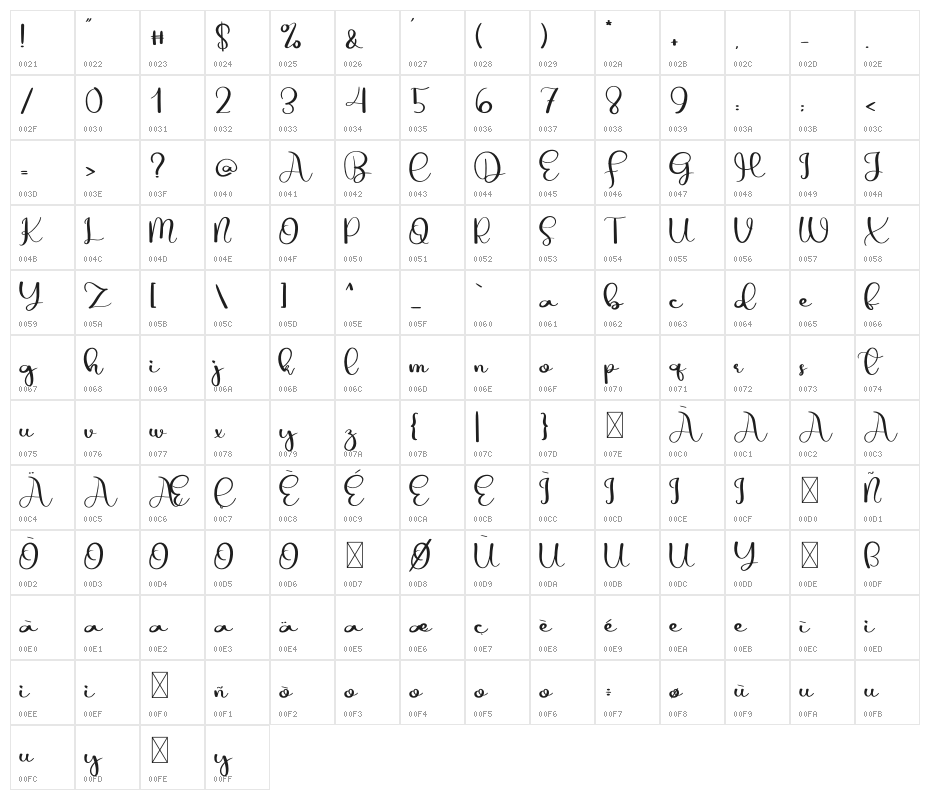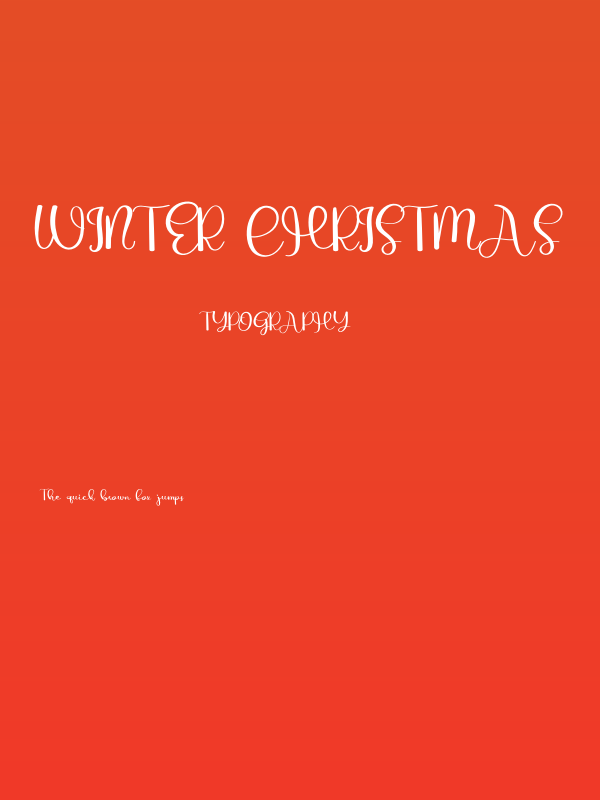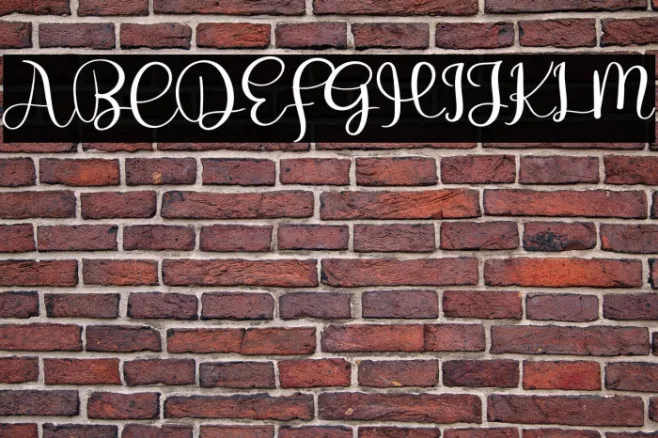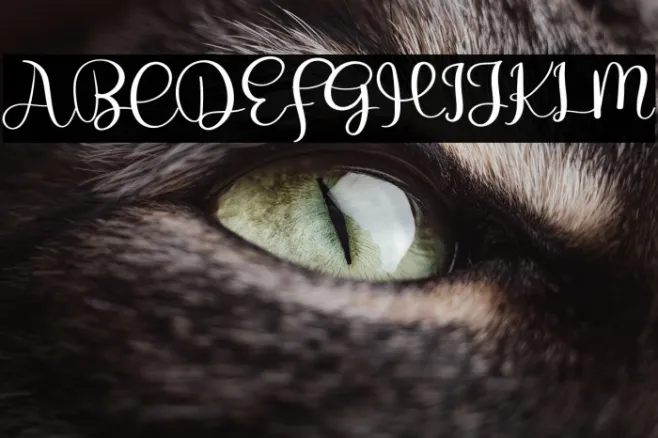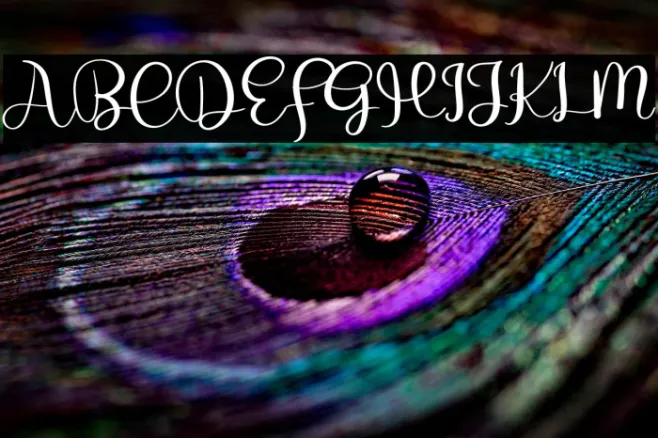
Winter Christmas Font
Winter Christmas Description
This font features a whimsical and flowing script style, reminiscent of festive holiday themes. The uppercase letters are elegantly curved with a playful touch, while the lowercase letters maintain a consistent, smooth flow. The numbers are bold and slightly exaggerated, adding to the font's decorative appeal. Special characters are creatively designed, enhancing the font's overall festive and joyful appearance. The strokes vary in thickness, providing a dynamic and lively contrast that captures attention.
| Proposed Projects | Ideal for holiday cards, festive invitations, seasonal branding, and decorative signage. |